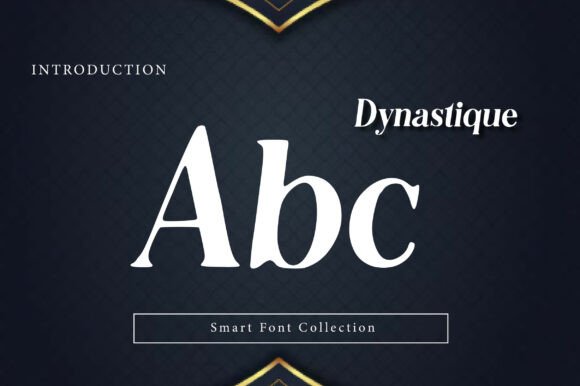
Dynastique Font: Elevate Your Design with Timeless Elegance
In the world of typography, few fonts capture the essence of luxury and sophistication as effortlessly as Dynastique. This refined and elegant serif display font is designed to bring a timeless, high-end feel to your design projects, making it perfect for those who crave a touch of class and sophistication in their work. With its graceful curves, high-contrast strokes, and sophisticated serif details, Dynastique is the ideal choice for designers and crafters looking to elevate their typography to new heights.
The Essence of Dynastique
Dynastique is more than just a font – it’s an experience. Its stylish and classic appearance is reminiscent of a bygone era, evoking feelings of luxury, refinement, and elegance. The font’s high-contrast strokes and serifs add a level of sophistication, making it perfect for high-end branding, premium design projects, and editorial titles. Whether you’re designing a luxury brand identity, creating elegant magazine headlines, or crafting beautiful wedding invitations, Dynastique delivers a professional and premium look that’s sure to leave a lasting impression.
Design Features of Dynastique
So, what makes Dynastique so special? Here are just a few of its standout design features:
- Graceful Curves: Dynastique’s smooth, flowing curves add a touch of elegance to any design, making it perfect for luxury brands and high-end products.
- High-Contrast Strokes: The font’s high-contrast strokes create a sense of drama and sophistication, adding depth and visual interest to your typography.
- Sophisticated Serif Details: Dynastique’s serifs are carefully crafted to add a touch of refinement and luxury to your design, making it perfect for high-end branding and editorial titles.
Perfect for Luxury Design Projects
Dynastique is designed with luxury design projects in mind. Its classic, sophisticated appearance makes it perfect for:
- Fashion Logos: Create a lasting impression with a custom fashion logo that exudes elegance and sophistication.
- Luxury Product Branding: Elevate your luxury product brand with typography that reflects its high-end quality.
- Magazine Headlines: Add a touch of class to your magazine headlines with Dynastique’s elegant, refined appearance.
- Wedding Invitations: Make your wedding invitations truly special with custom typography that exudes luxury and sophistication.
- Book Covers: Create a lasting impression with a beautifully designed book cover that showcases Dynastique’s elegant, refined appearance.
- Premium Packaging Design: Elevate your premium packaging design with typography that reflects its high-end quality.
Why Choose Dynastique?
So, why choose Dynastique for your design projects? Here are just a few reasons:
- Timeless Elegance: Dynastique’s classic, sophisticated appearance ensures that your design will stand the test of time.
- Versatility: The font’s versatility makes it perfect for a wide range of design projects, from luxury branding to editorial titles.
- Memorability: Dynastique’s elegant, refined appearance makes it easy to remember, ensuring that your design will leave a lasting impression.
In conclusion, Dynastique is a truly exceptional font that’s perfect for designers and crafters looking to elevate their typography to new heights. Its timeless elegance, versatility, and memorability make it an ideal choice for luxury design projects, high-end branding, and editorial titles. Whether you’re creating a luxury brand identity or designing elegant editorial titles, Dynastique delivers a professional and premium look that’s sure to leave a lasting impression.